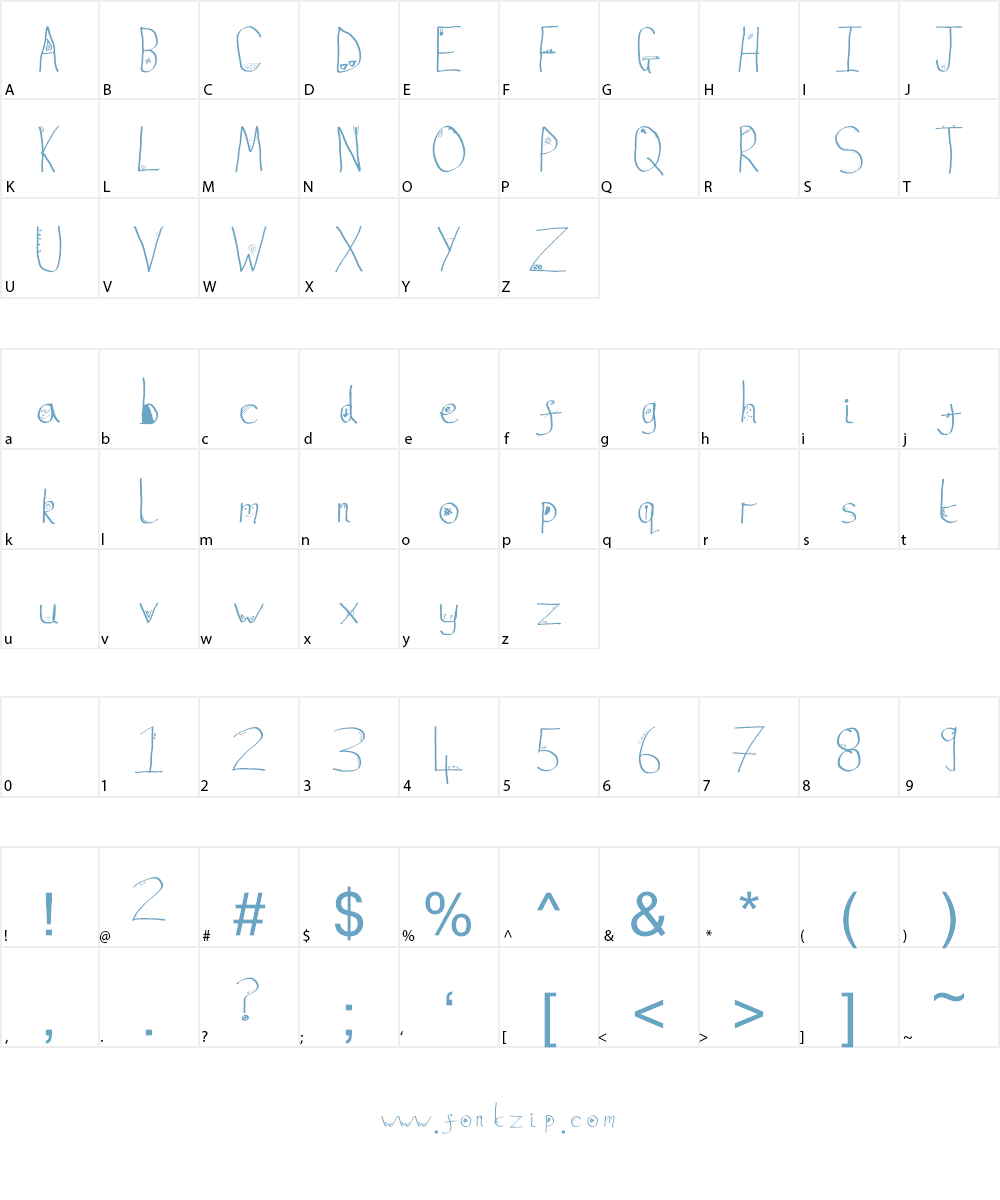
This is a hand drawn font which is supposed to represent messy creativity and free thought. I decided to call it "Fugacious Elixir" because the word "fugacious" means 'fleeting' and "elixir" means 'good potion'. I got this idea based on the meaning of those two words combined being like a hit of drugs that doesn't last long but can cause our minds to experience strong pleasure.
Because of this each individual letter and number in the font has unique sketches, some represent something, others are general scribbles. But all were spontaneous and supposed to represent the messy creativity embodied in the font.